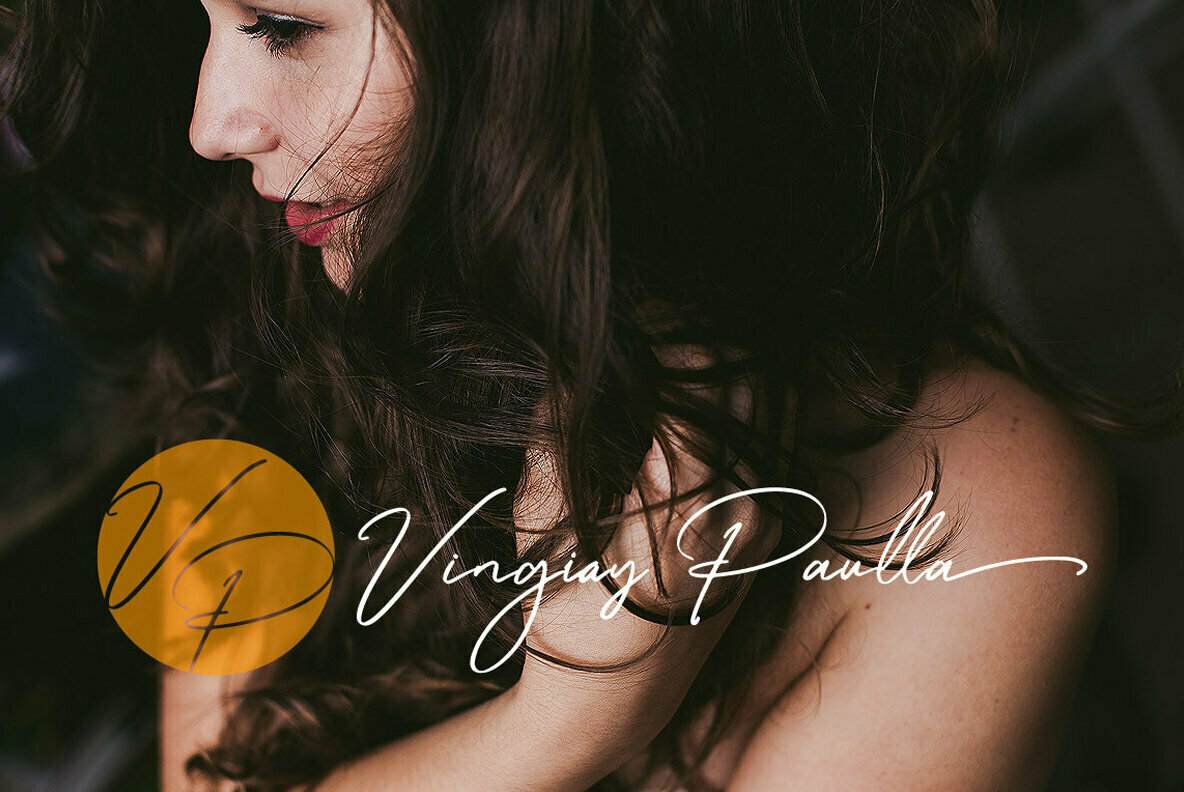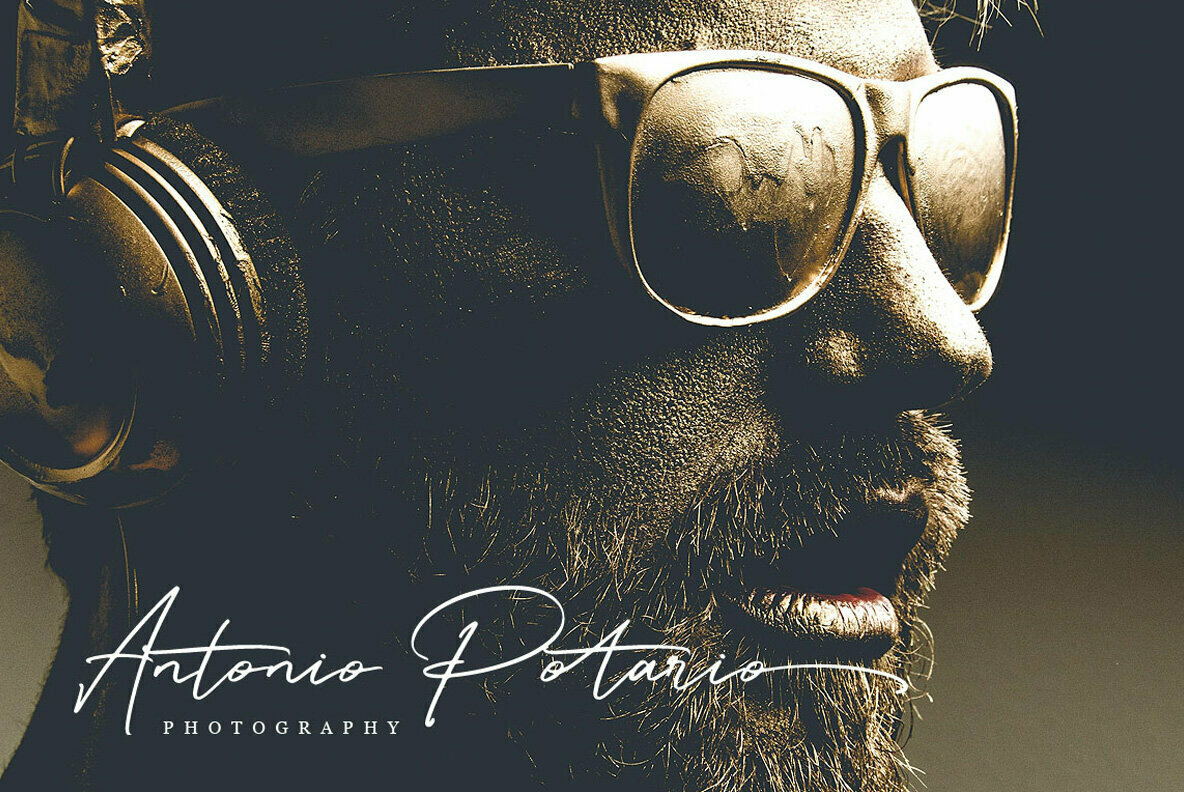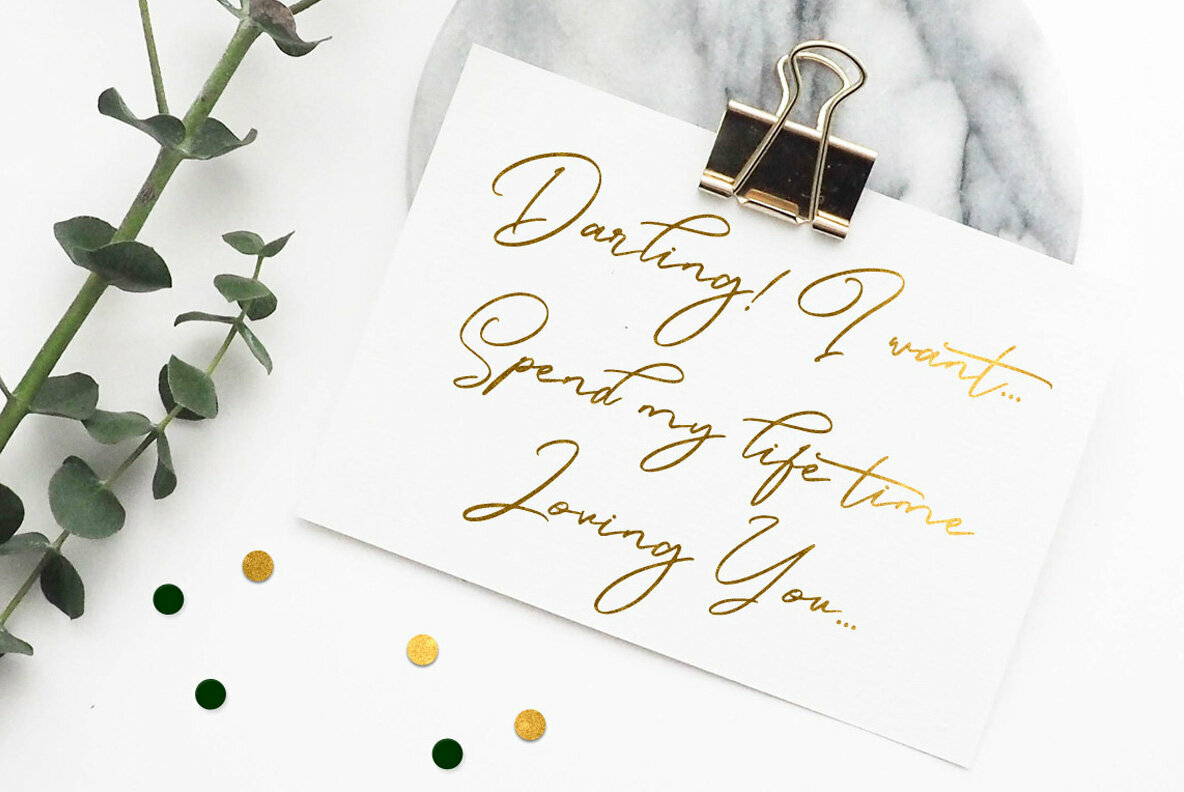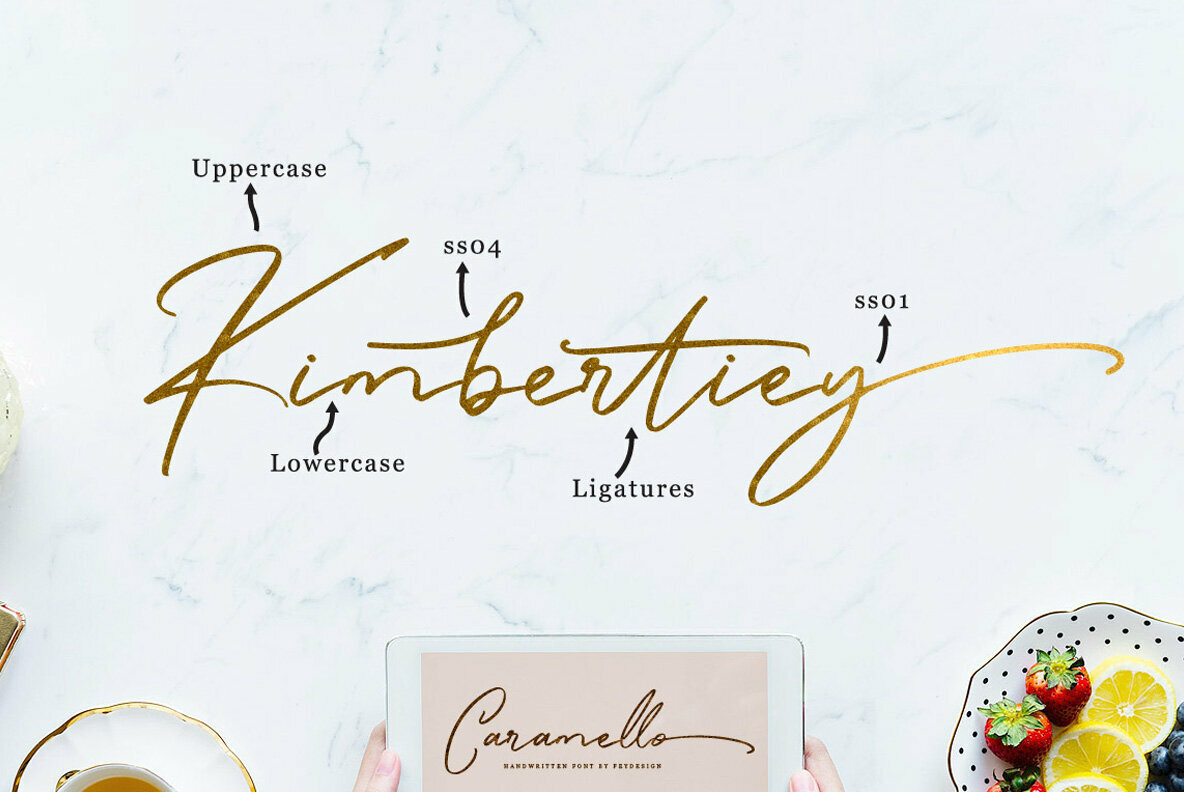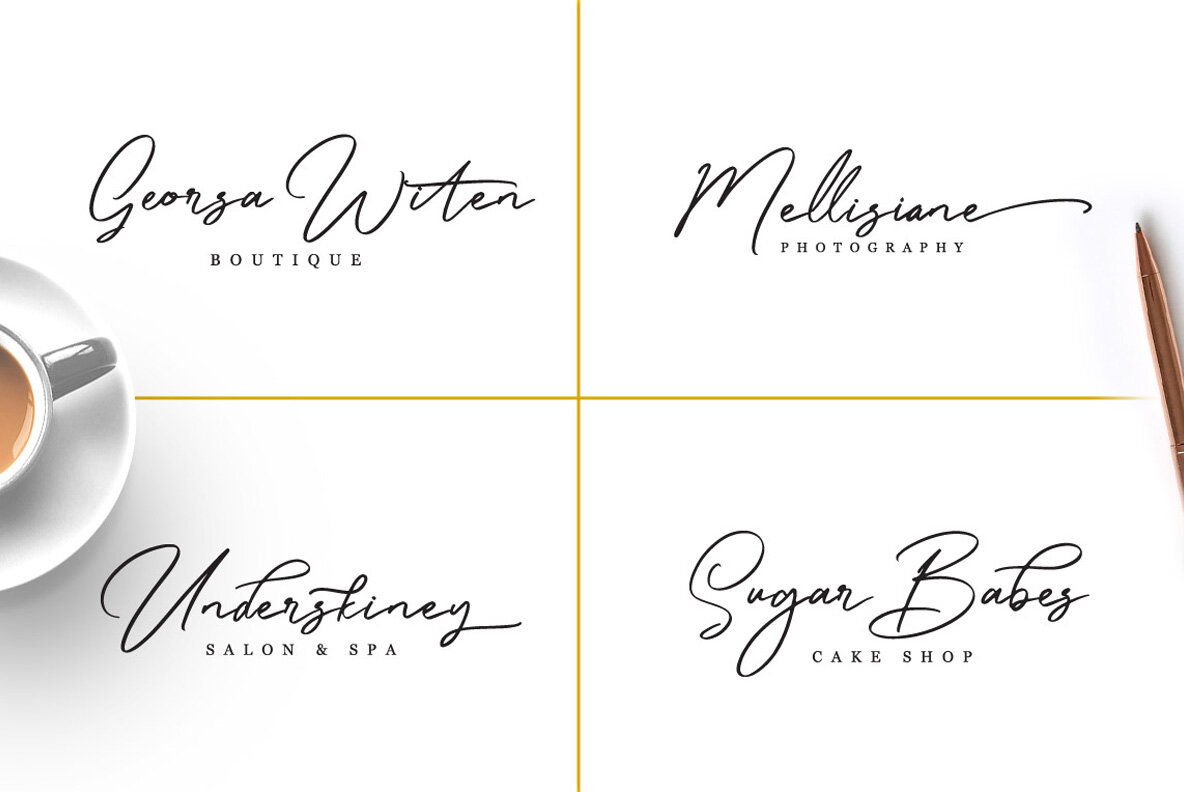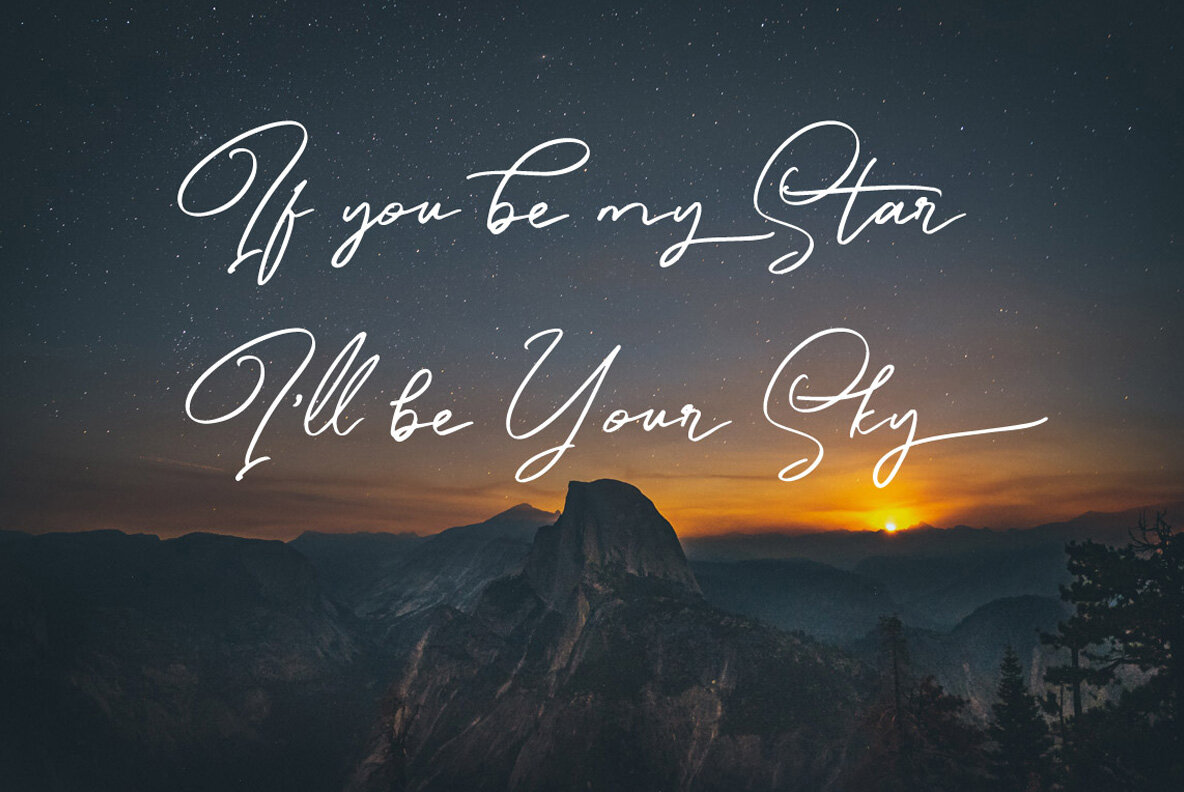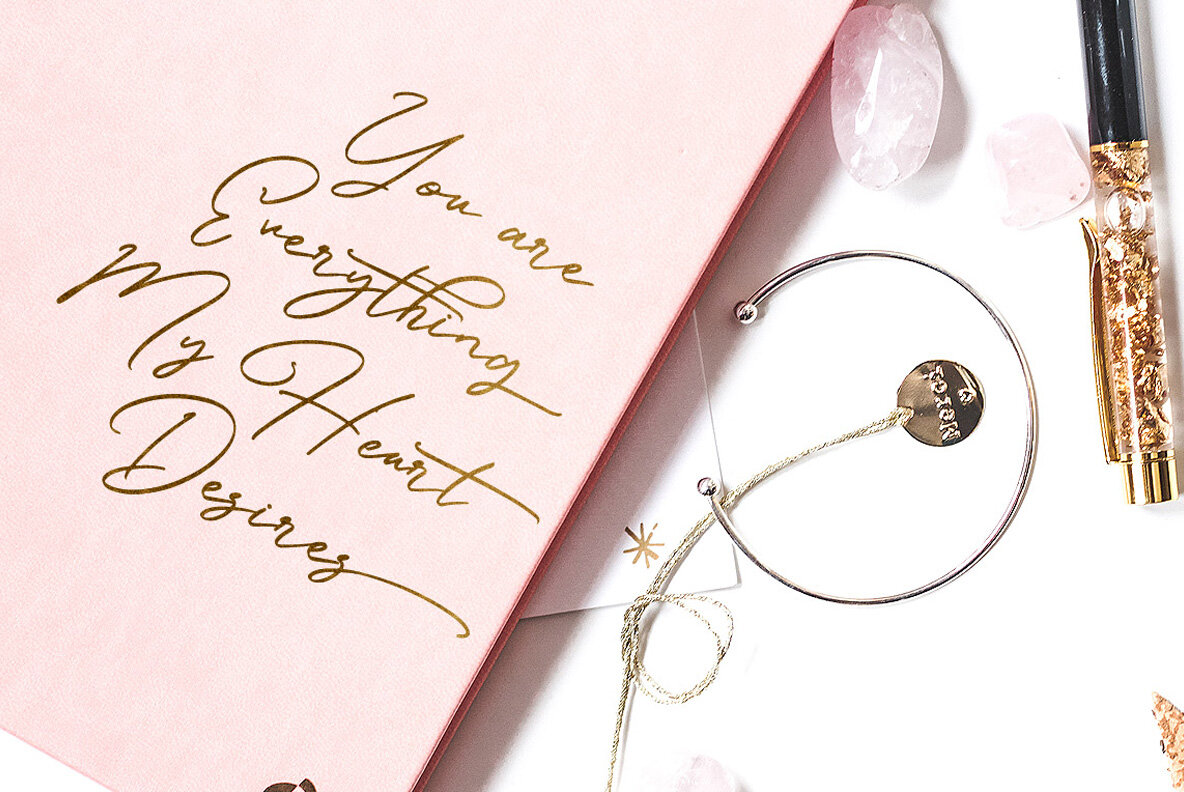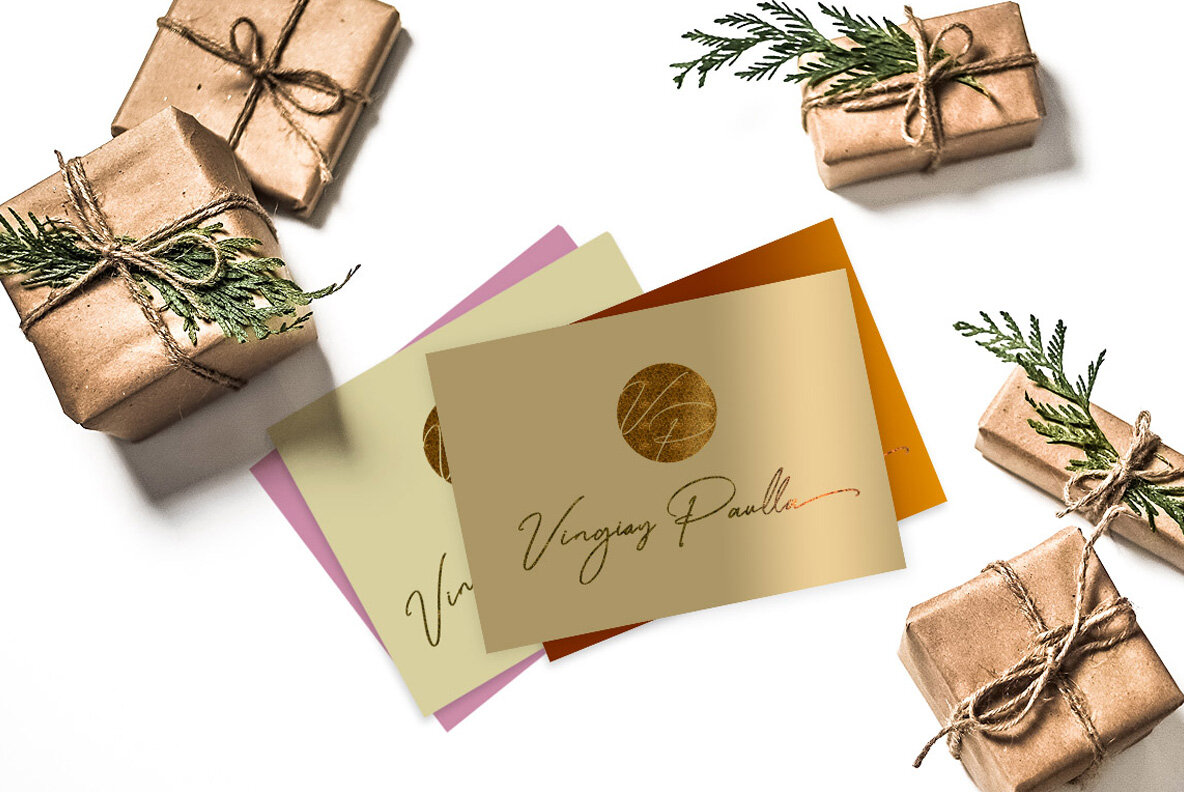
Caramello Font
Caramello
Caramello by Ferry Hadriyan exudes the elegance of a signature style that enhances any project with its graceful handwritten script. It's an impeccable choice for a variety of applications such as wedding invitations, event planning materials, t-shirts, logos, badges, and more. The effortless charm of Caramello allows it to adapt to diverse design needs, making it a valuable addition to any designer’s toolkit.Caramello: A Signature Handwritten Script Font